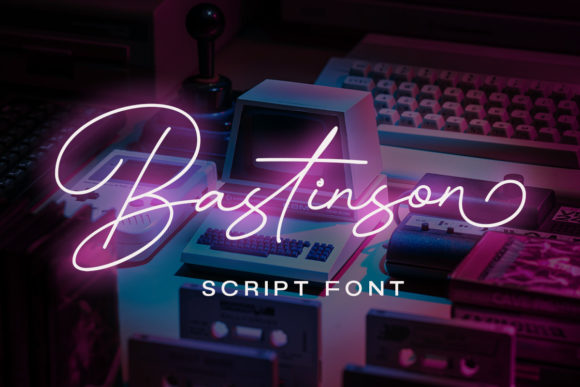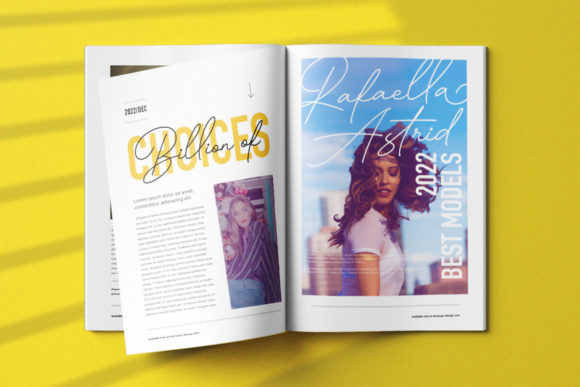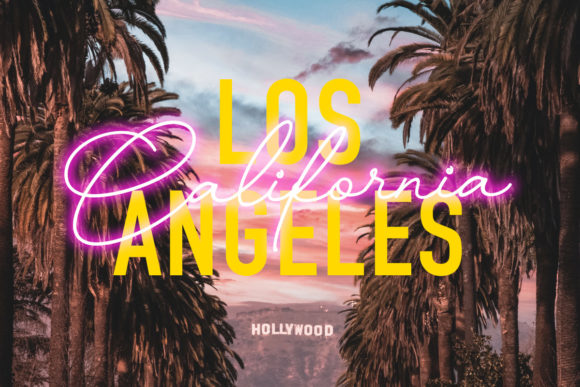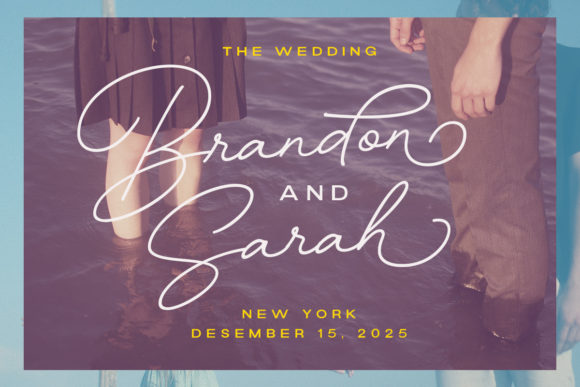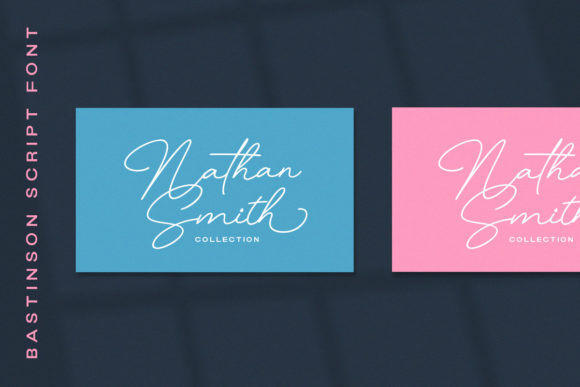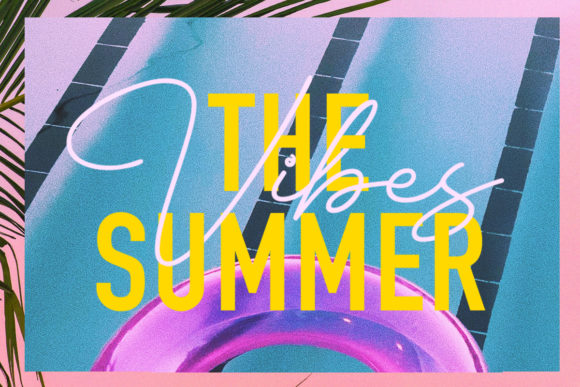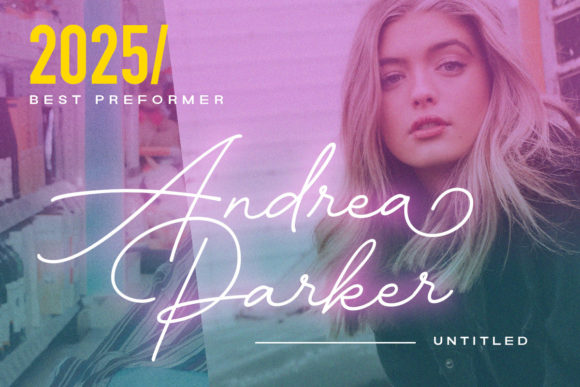
Bastinson – Monoline Script Font
About Bastinson – Monoline Script Font
Bastinson is a thin lettered script font, featuring a retro vibe. This gentle font will look gorgeous on a variety of design ideas. It will add a joyful and romantic touch to each of your projects!